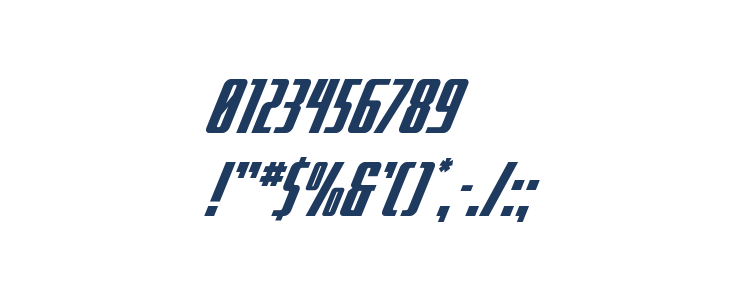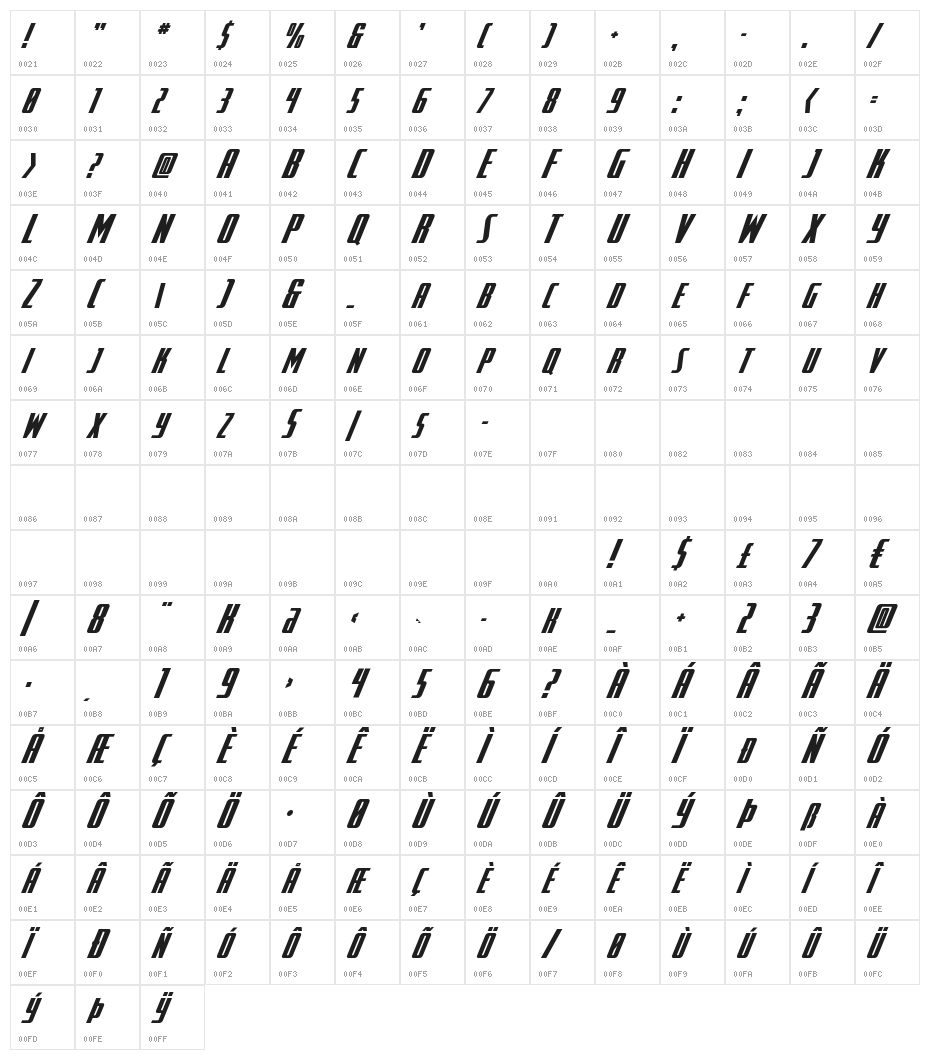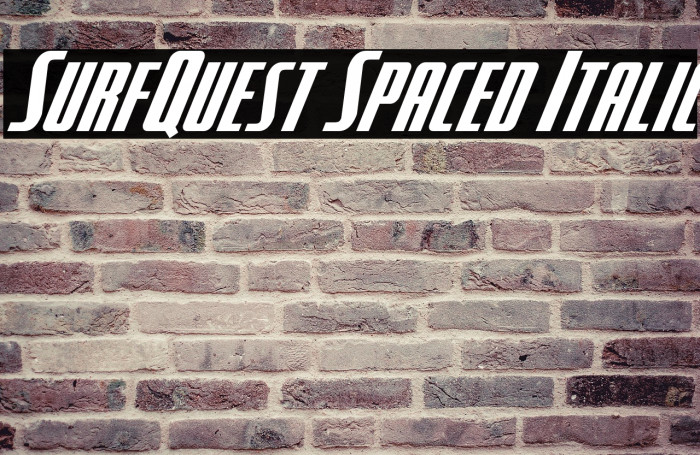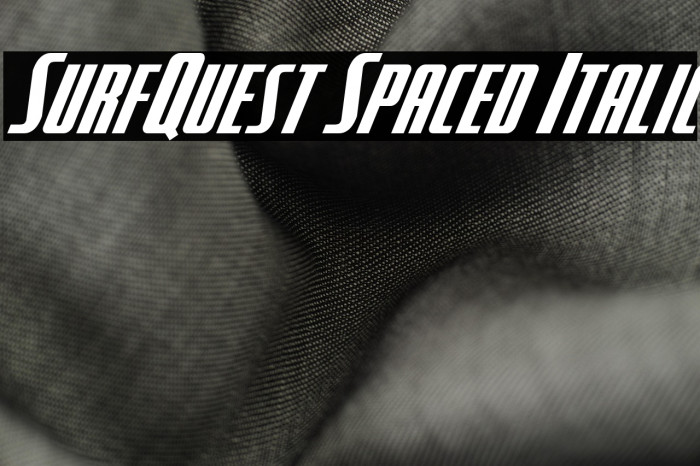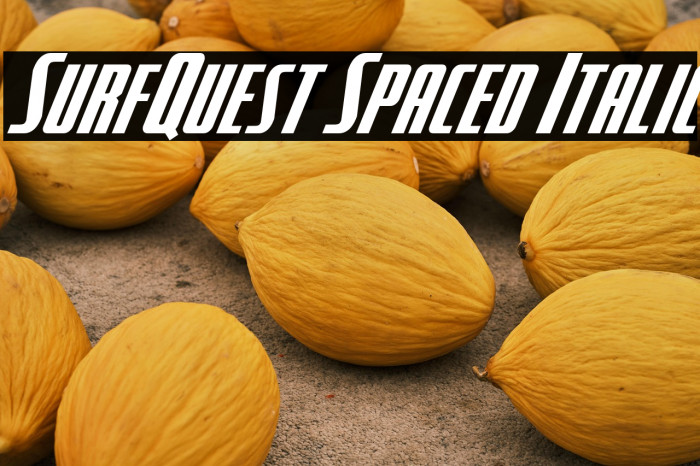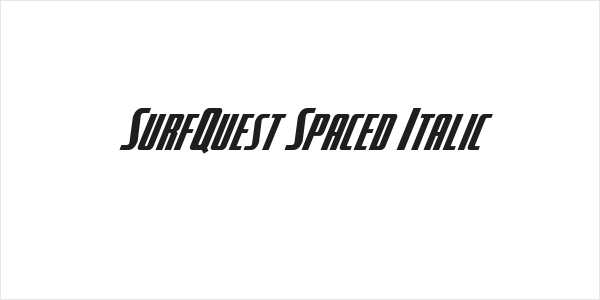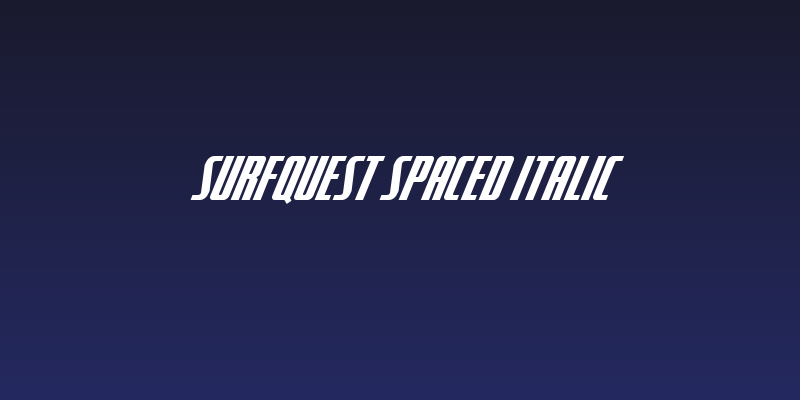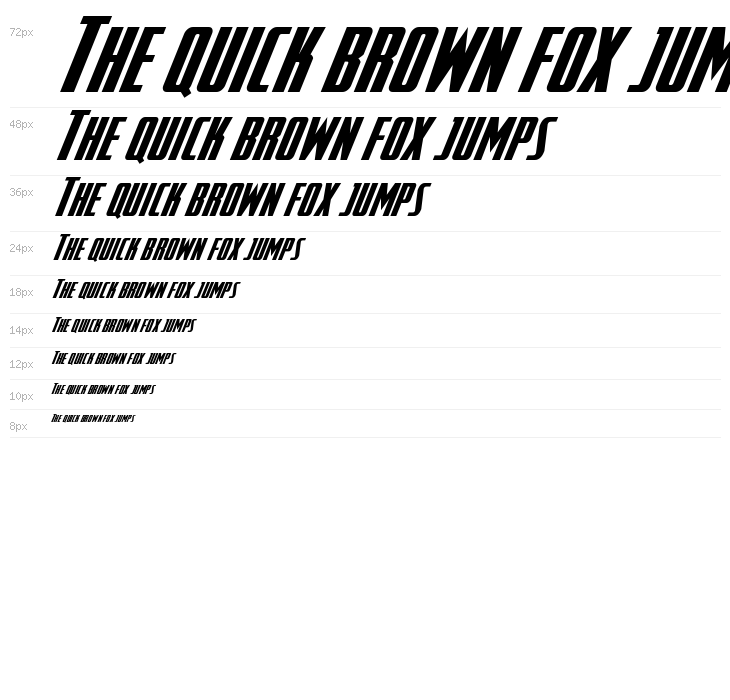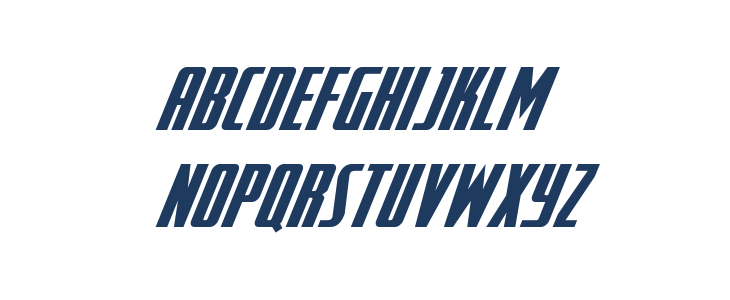
SurfQuest Spaced Italic Font
SurfQuest Spaced Italic Description
This font features a bold and dynamic style with a strong italic slant, giving it a sense of motion and energy. The characters are tightly spaced, enhancing its compact and impactful appearance. The strokes are thick and consistent, providing a high contrast that makes the text stand out prominently. Its angular and sharp edges contribute to a modern and edgy aesthetic, making it suitable for attention-grabbing designs. The font includes a full set of uppercase and lowercase letters, numbers, and a variety of special characters, ensuring versatility in usage.